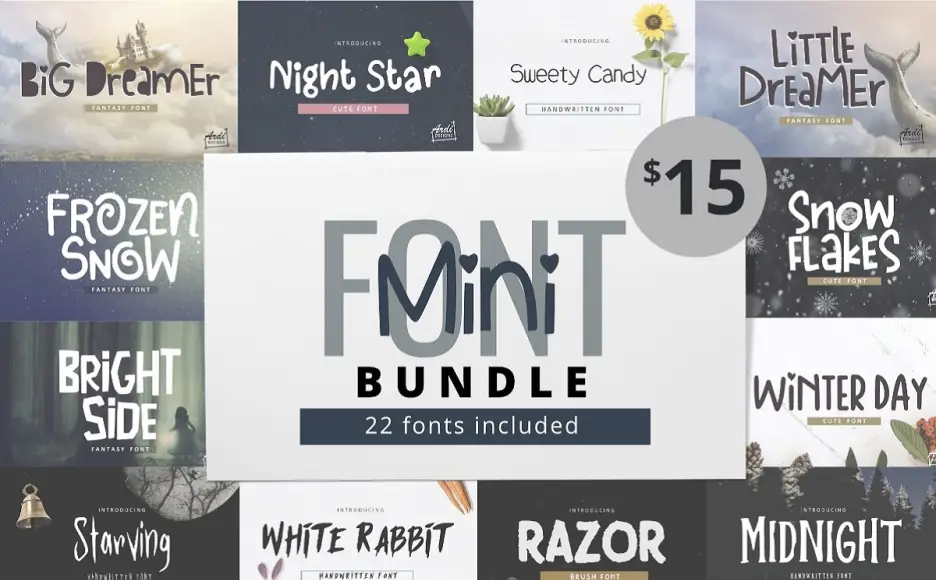
Mini Font Bundle
Introducing the Mini Font Bundle, a carefully curated collection of versatile typefaces designed to elevate your design projects. This bundle includes a variety of font styles and weights, perfect for both digital and print applications.
• Multiple font styles including serif, sans-serif, and script
• Various weights ranging from light to bold
Each font in the Mini Font Bundle has been crafted with precision, ensuring readability and aesthetic appeal. Whether you’re working on branding, logos, web design, or user interfaces, these fonts will provide the perfect finishing touch.
• Combine different styles for unique typography in your projects.
• Utilize the fonts for both headings and body text to create a cohesive look.
• Experiment with weights to emphasize important information.